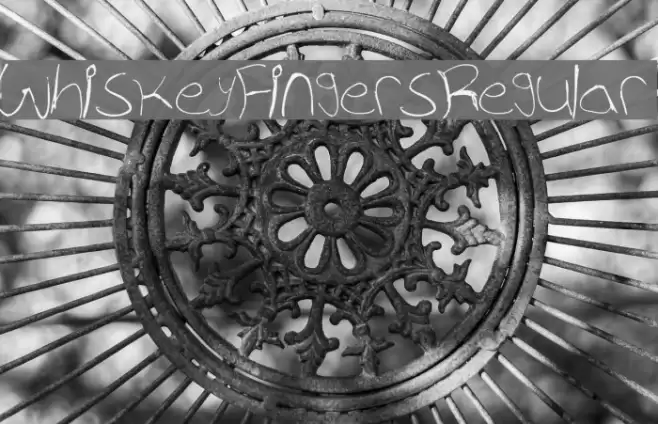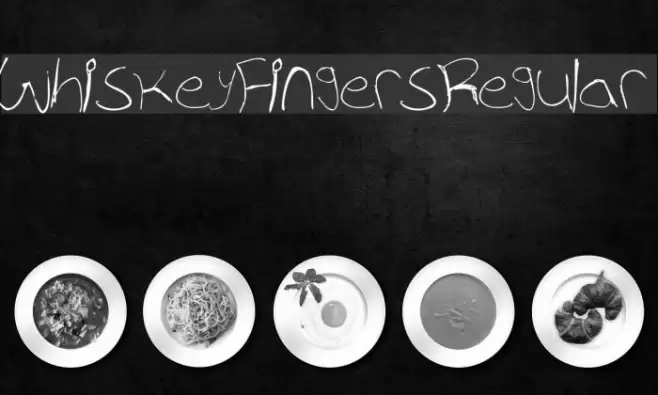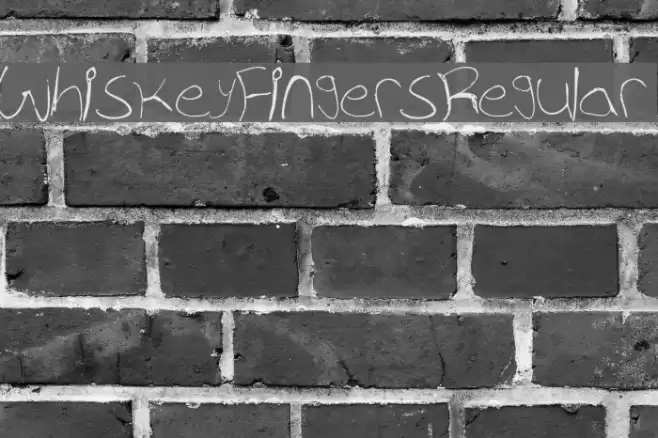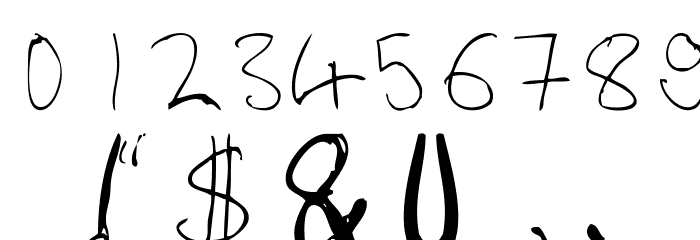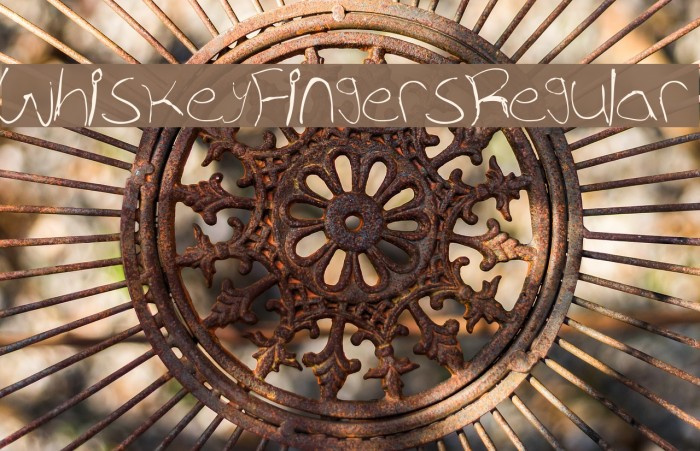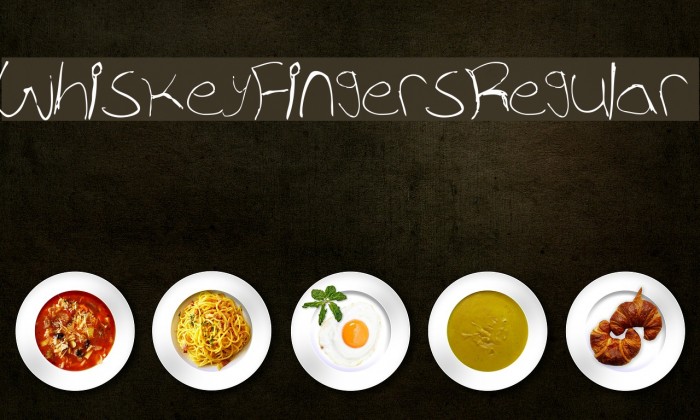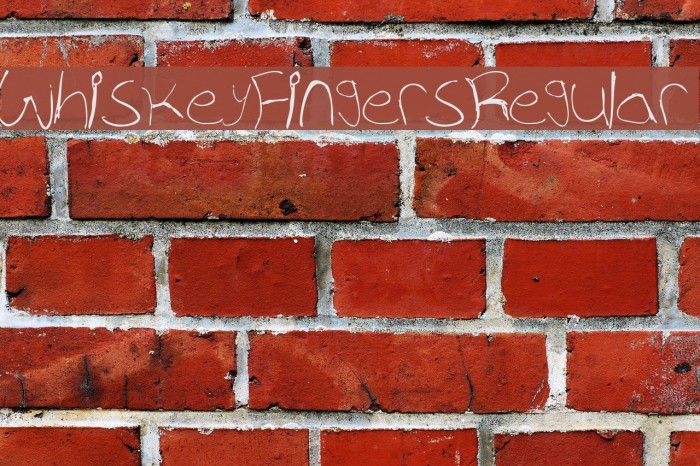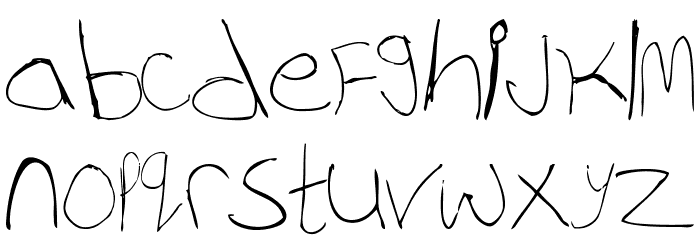
WhiskeyFingers-Regular Font
WhiskeyFingers-Regular Description
This font exudes a playful and artistic vibe, characterized by its irregular and hand-drawn appearance. The strokes are uneven, with a mix of thick and thin lines that give it a dynamic and spontaneous feel. The characters are slightly tilted and vary in size, adding to the whimsical nature of the design. This font captures a sense of creativity and freedom, making it ideal for projects that require a personal touch. Its unique style is reminiscent of brush strokes, with a raw and organic quality that stands out.
A playful, hand-drawn font with irregular, brush-like strokes from Uncategorized fonts.
- Proposed Projects: Ideal for creative projects such as art posters, invitations, and branding that require a personal and artistic touch.
- Overall Style: Artistic
- Use Case: Logos, Posters, Invitations